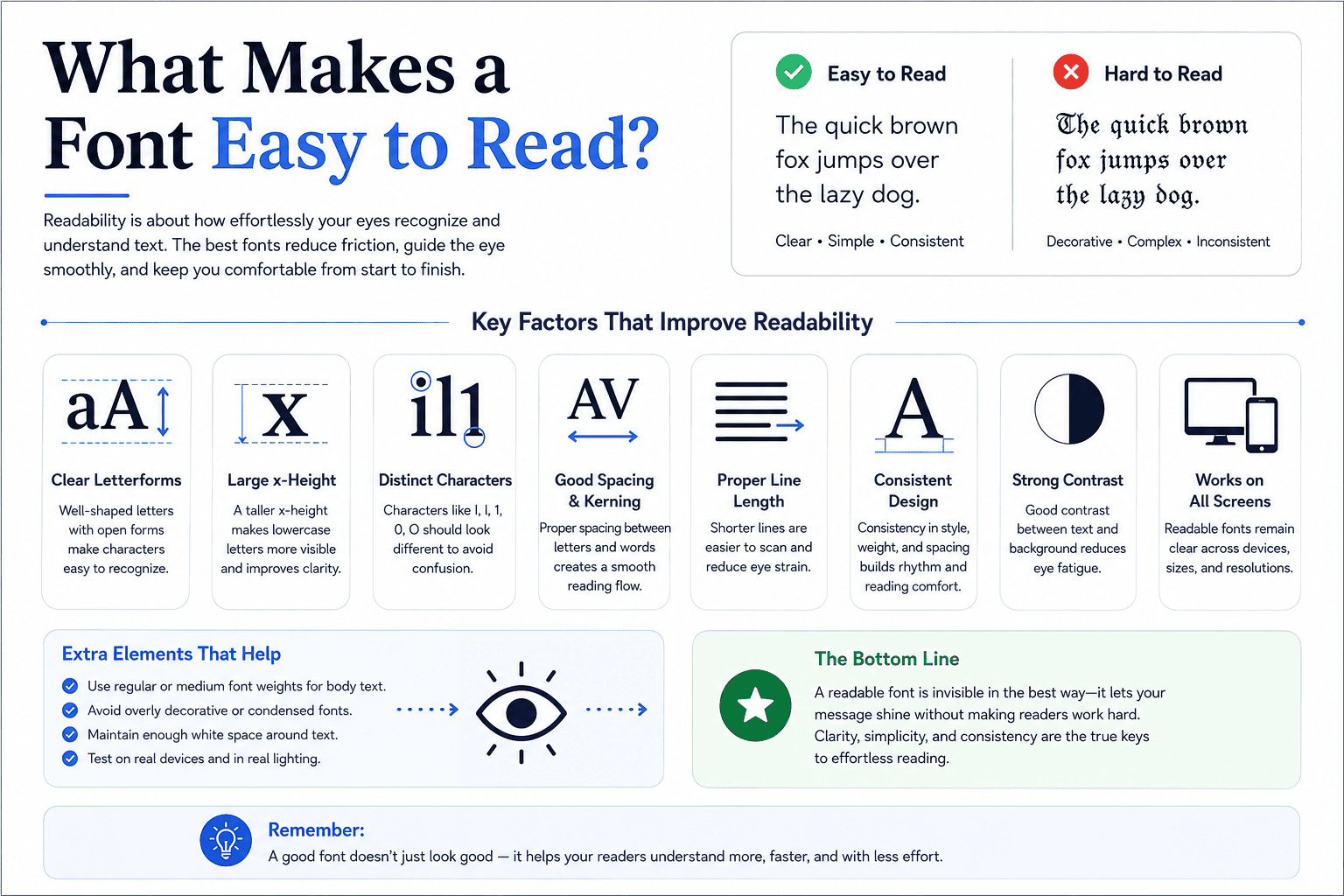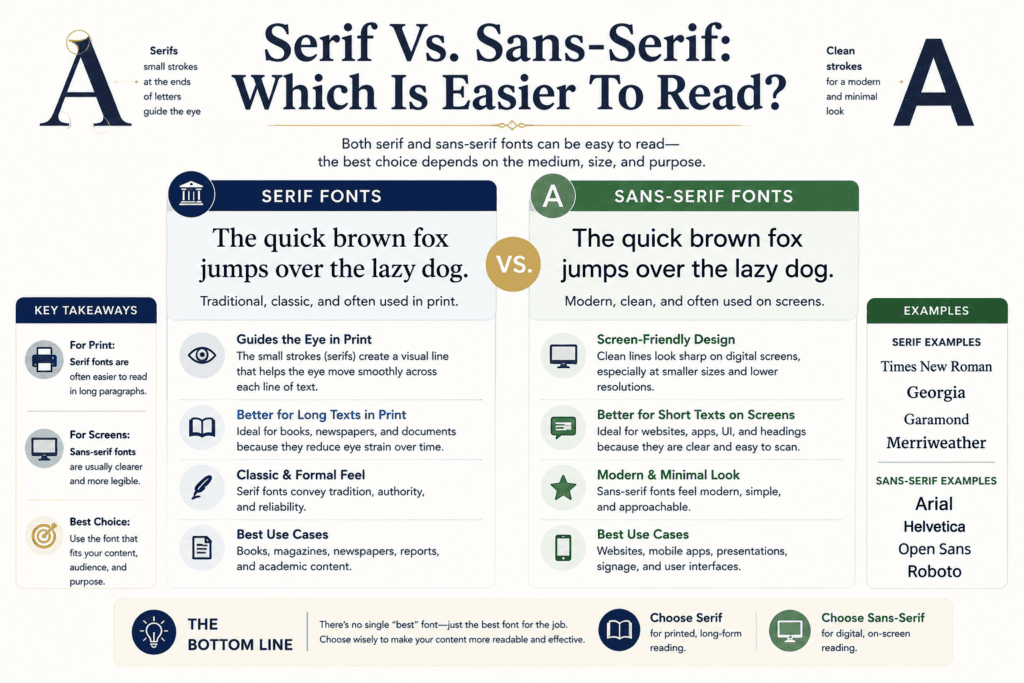
A readable font starts with clarity, but experienced designers look beyond appearance. Letterforms, x-height, proportions, and character distinction determine whether body text feels effortless during sustained eye scanning, especially on modern screens and digital contexts.
From my testing, effective design balances simplicity, consistency, and visual flow rather than chasing novelty. Good kerning, letter spacing, suitable font structure, and careful testing help preserve readability across devices, formats, and audiences with confidence.
What Makes a Font Easy to Read?
A truly readable typeface balances letterform clarity, x-height, spacing, font weight, and contrast before visual style matters. I test body text across digital interfaces, checking screen readability, clarity, and legibility at practical font size ranges.
Strong choices respect audience, context, and environment rather than trends. Clear character distinction, consistent typography hierarchy, comfortable line spacing, and accessible text visibility make long-form content easier to scan, especially on mobile devices and websites.
Serif Vs. Sans-Serif: Which Is Easier To Read?
Serif and sans-serif choices rarely determine readability alone; in practice, typeface, font size, spacing, and contrast interact with audience needs. I often test letterforms across context before judging either category carefully in testing with users.
For digital interfaces, screen readability can favor simpler forms, while long-form print may benefit from familiar details. Yet print readability depends on typography choices collectively, not a universal serif or sans-serif rule in every setting.
Letter Spacing, Kerning, And Spacing
Thoughtful line spacing and measured gaps create a steady reading rhythm. I often refine these details after testing paragraphs, because crowded characters can undermine otherwise strong type choices, especially when text density increases on screens comfortably.
Visual rhythm depends on more than equal gaps: letter distinction and distinguishable characters must remain obvious. A consistent approach to kerning and spacing prevents clusters, helping readers move across words without unnecessary pauses or hesitation.
X-Height And Proportions
Lowercase characters with a generous x-height often feel larger at identical font size, improving screen readability and reducing effort. In my testing, balanced proportions make letterforms easier to scan across small text and dense interfaces.
Good ascenders and letterforms create recognizable shapes, while consistent proportions support legibility, visual consistency, and accessibility. I favor typefaces whose weight, context, and audience remain comfortable when reading long passages on screens without unnecessary visual strain.
Character Distinction And Letterform Clarity
Good type rarely announces itself. In practice, character distinction depends on open shapes, clear counters, and consistent letterforms. Strong visual clarity lets readers separate similar glyphs quickly, especially when small text appears on screens efficiently.
I test fonts by scanning real sentences rather than isolated samples. Balanced letterform construction, adequate spacing, and recognizable lowercase characters reduce hesitation, while distinct ascenders and descenders preserve legibility throughout dense reading consistently across layouts.
Font Weight And Stroke Characteristics
Font weight changes how quickly letters separate during reading, while stroke contrast controls visual texture. In my testing, moderate weight with consistent letterforms improves clarity, especially when smaller text meets demanding screen readability conditions well.
Heavy strokes can reduce open space and make confusing characters merge, yet overly light forms disappear against a background. Good choices balance text visibility, accessibility, and readability, particularly across digital interfaces and healthcare materials daily.
Font Size And Scale
Font size changes readability before decorative detail matters. On screen, a slightly larger body text setting can improve legibility, especially across digital interfaces where users scan quickly and device dimensions vary significantly between common conditions.
A practitioner’s useful starting point is a comfortable range, then testing 16–18px against audience needs. Screen readability depends on scale, viewing distance, and context; real users reveal whether sizing supports accessibility without weakening hierarchy.
Clarity, Simplicity, And Decorative Fonts
Readable typography begins with clarity, not ornament. In practice, I find body copy performs best when simple fonts preserve legibility, while decorative fonts remain reserved for display type, where reduced reading demands allow more personality.
I often test typeface selection against real screens before approving font pairing or decorative type. Excess styling can weaken text visibility and user experience; restraint improves visual clarity, especially when font size and spacing change across.
Easy-to-read cursive fonts can work when their scripted designs retain clear letterforms, moderate spacing, and simple strokes. In practice, I favor readable fonts with restrained decorative type, especially for headings and brief, short labels only.
What Is The Best Font For A Medical Website?
For medical websites, healthcare typography should prioritize clinical-scale legibility, clear hierarchy, and trust. In practice, I favor restrained sans-serif forms, generous spacing, and strong contrast because patients often scan information under pressure or discomfort today.